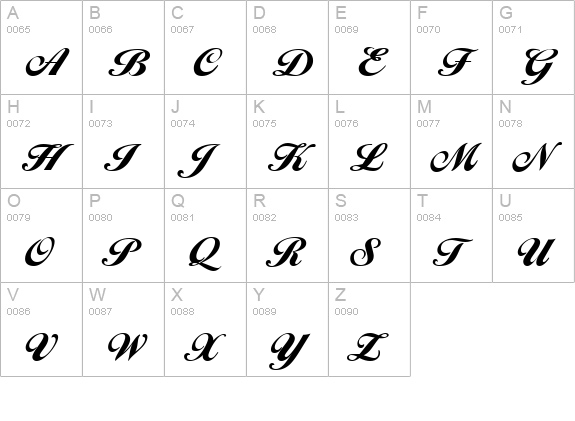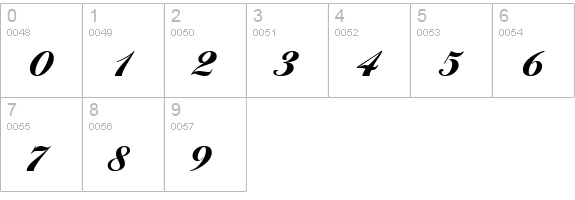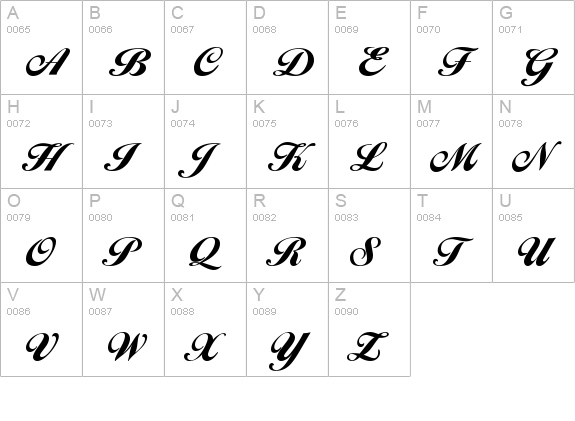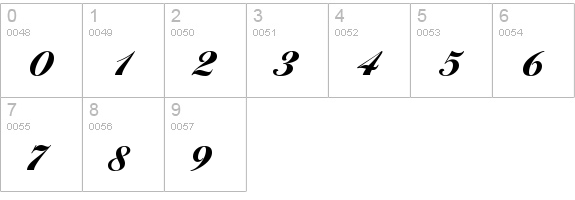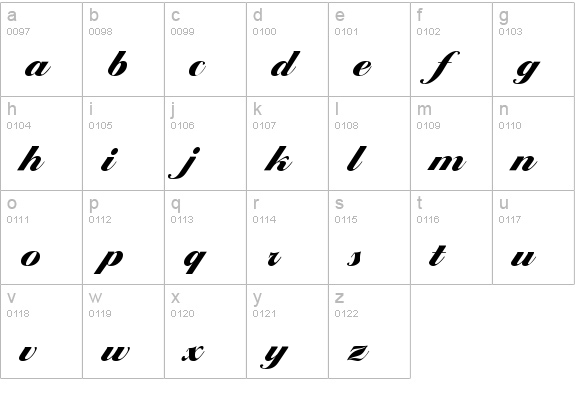
LarissaExtrabold Regular Font Details
LarissaExtrabold Regular is the standard, neutral variant in the LarissaExtrabold typeface family \xE2\x80\x94 well suited to general body text, paragraphs, and standard typographic work.
LarissaExtrabold Regular font is a stunning display typeface that exudes strength and sophistication. Its bold and commanding letterforms make it perfect for headlines, logos, and any design that requires a strong visual impact. With its clean lines and balanced proportions, LarissaExtrabold Regular font demands attention and adds a touch of elegance to any project. What makes this font even more remarkable is that it is available for free download at FontsMarket.com. Yes, you read it right - LarissaExtrabold Regular is freely available to all designers and creatives who want to elevate their designs with its powerful presence. FontsMarket.com offers this font with the utmost convenience, allowing you to instantly access and utilize it in your projects without any hassle. Whether you are designing a poster, a website, or a branding project, LarissaExtrabold Regular font will undoubtedly make a lasting impression. Its strong and distinctive character set ensures that your message is delivered with boldness and clarity. From fashion brands to tech startups, LarissaExtrabold Regular font is versatile enough to adapt to various industries and design styles. So, why wait? Head over to FontsMarket.com and take advantage of the opportunity to freely download LarissaExtrabold Regular font. Let this remarkable typeface elevate your designs and leave a lasting impact on your audience.